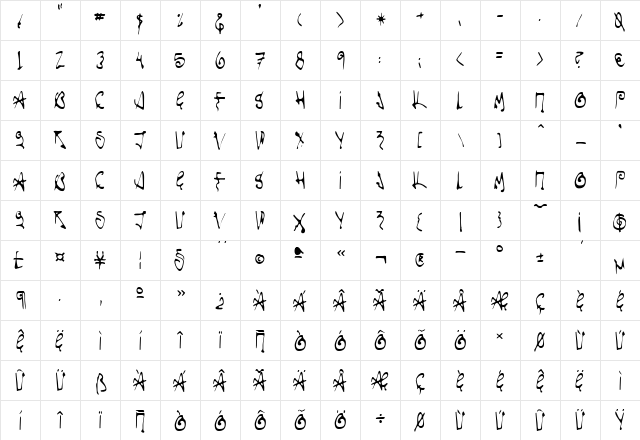
Scorpio Medium
Design Context for Scorpio Typeface
Scorpio is a composed and adaptable typeface that performs quietly and consistently across a wide range of design contexts.